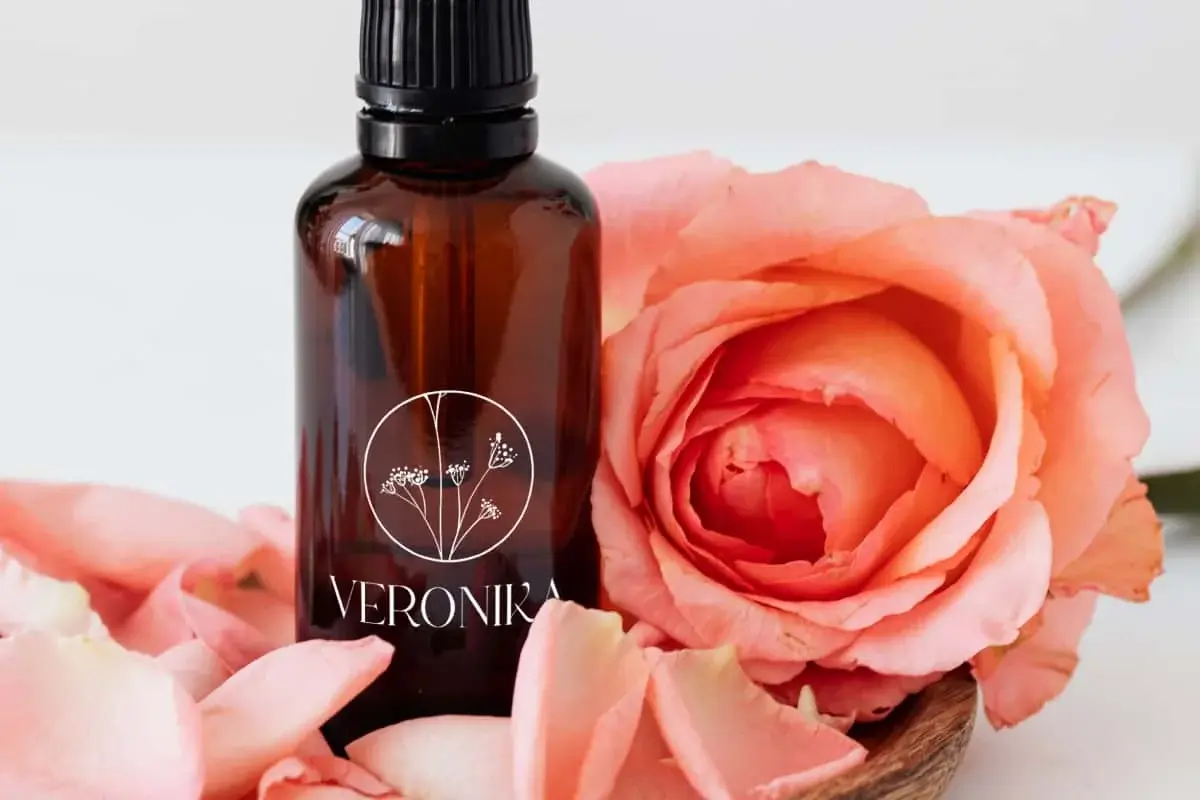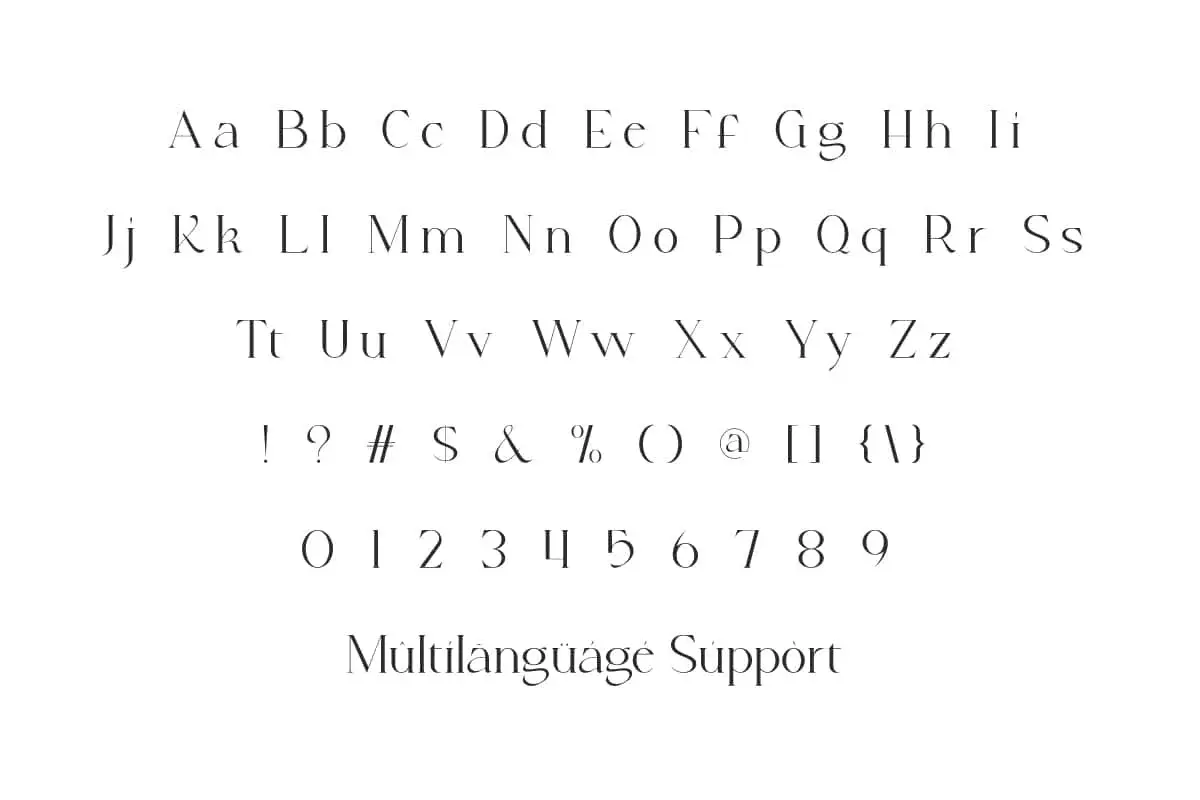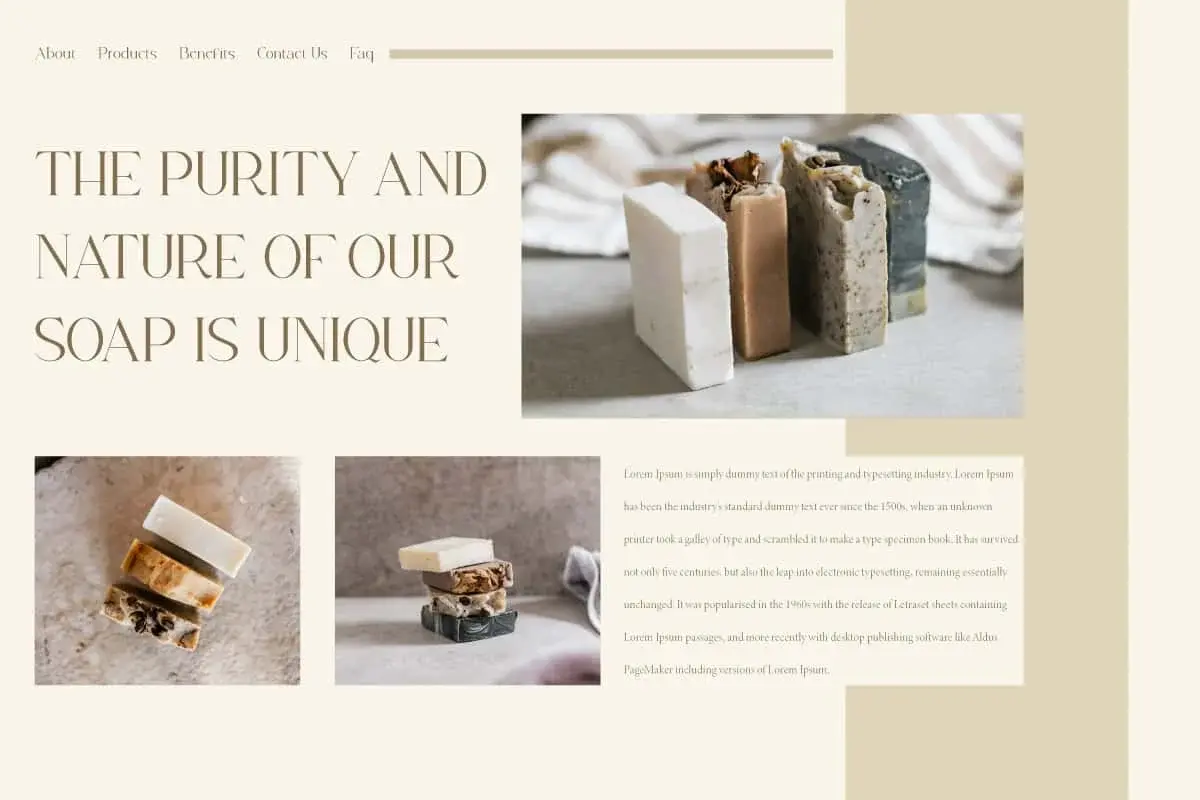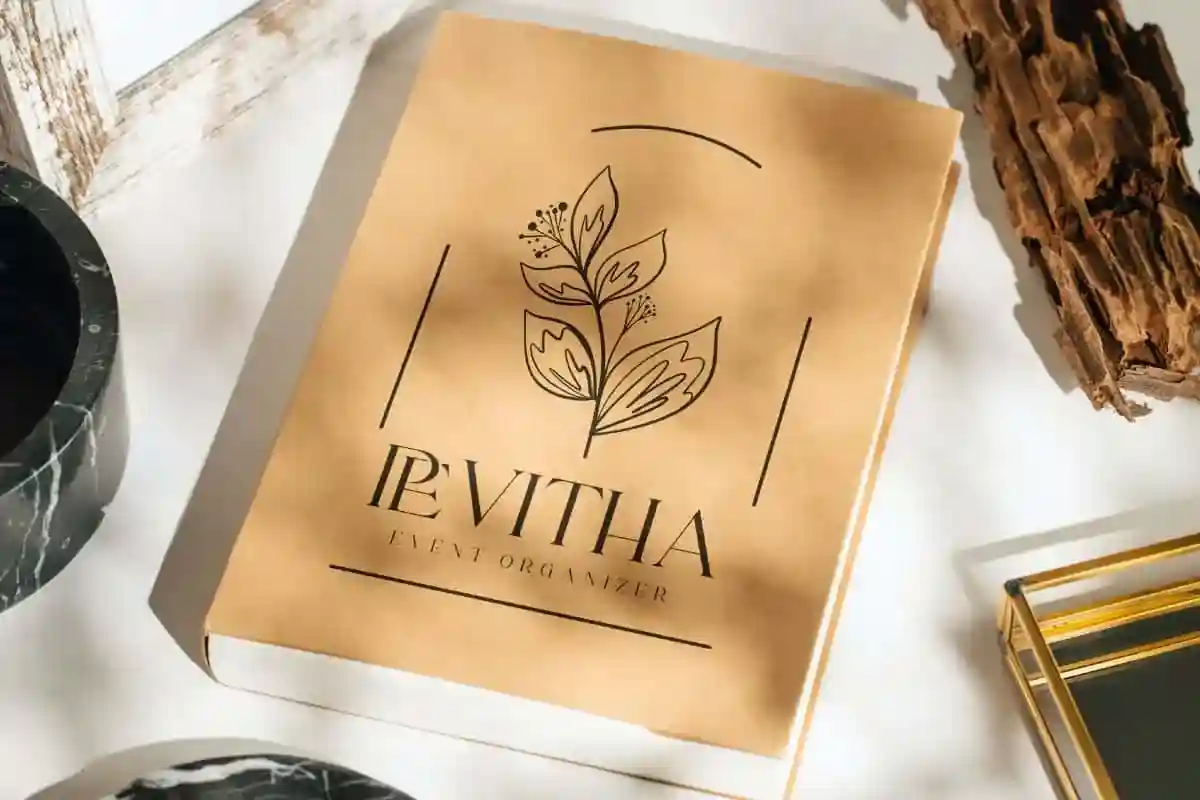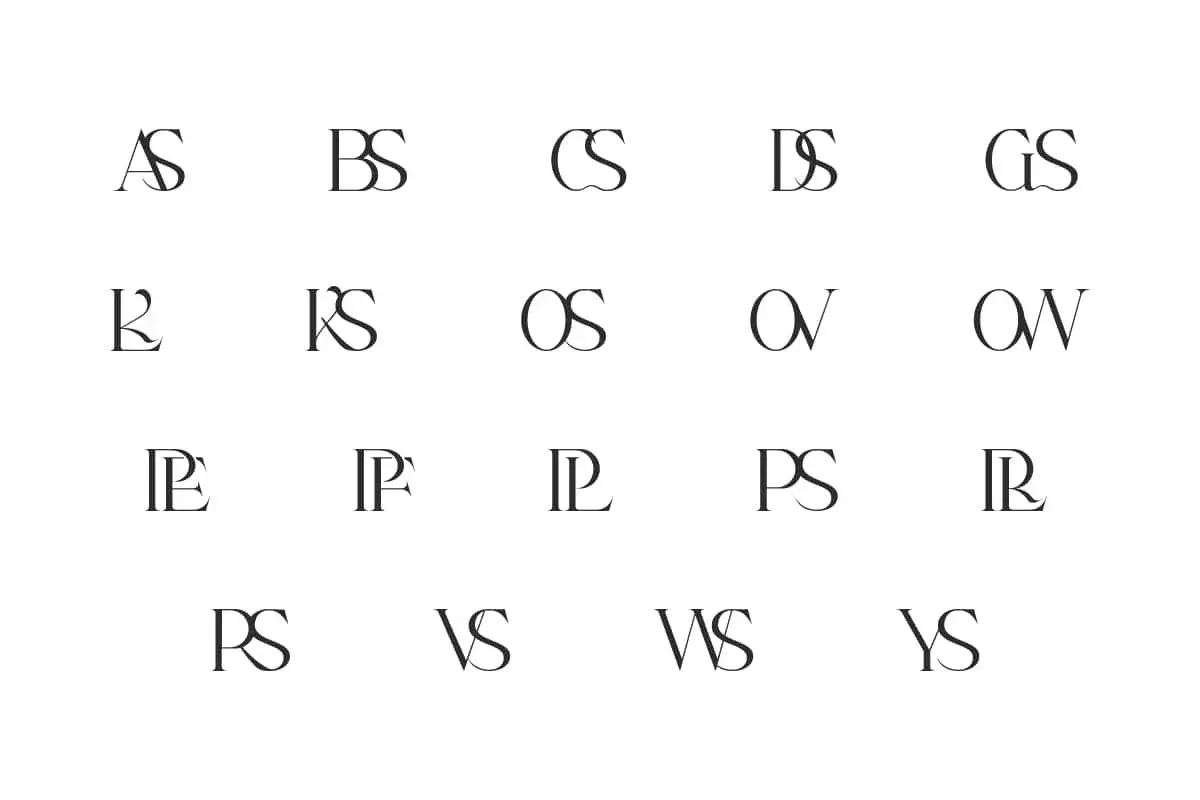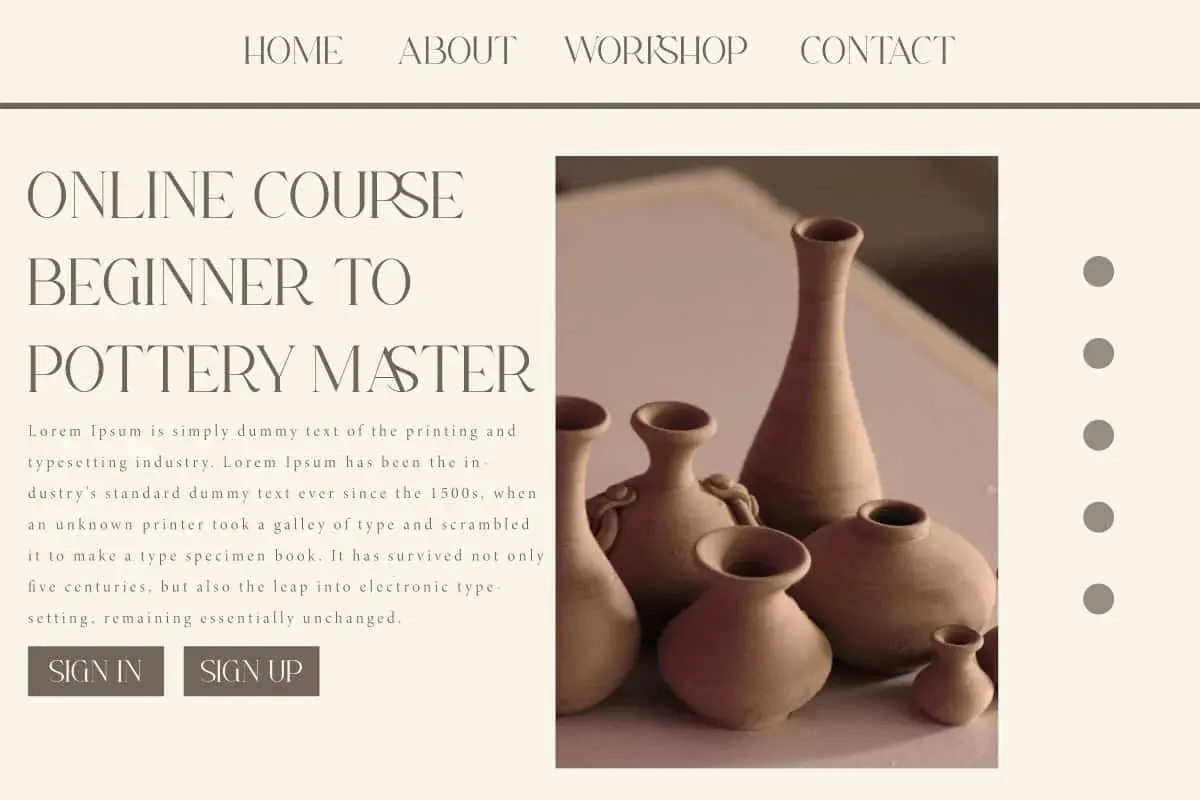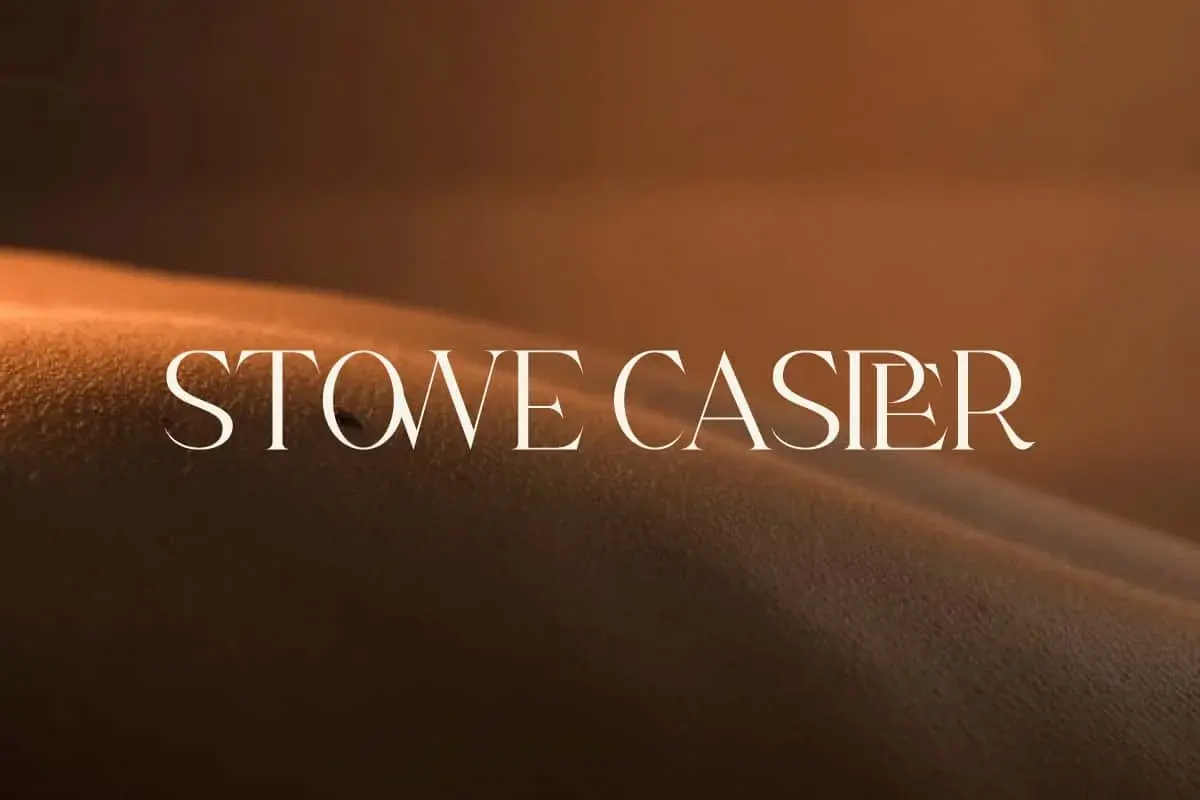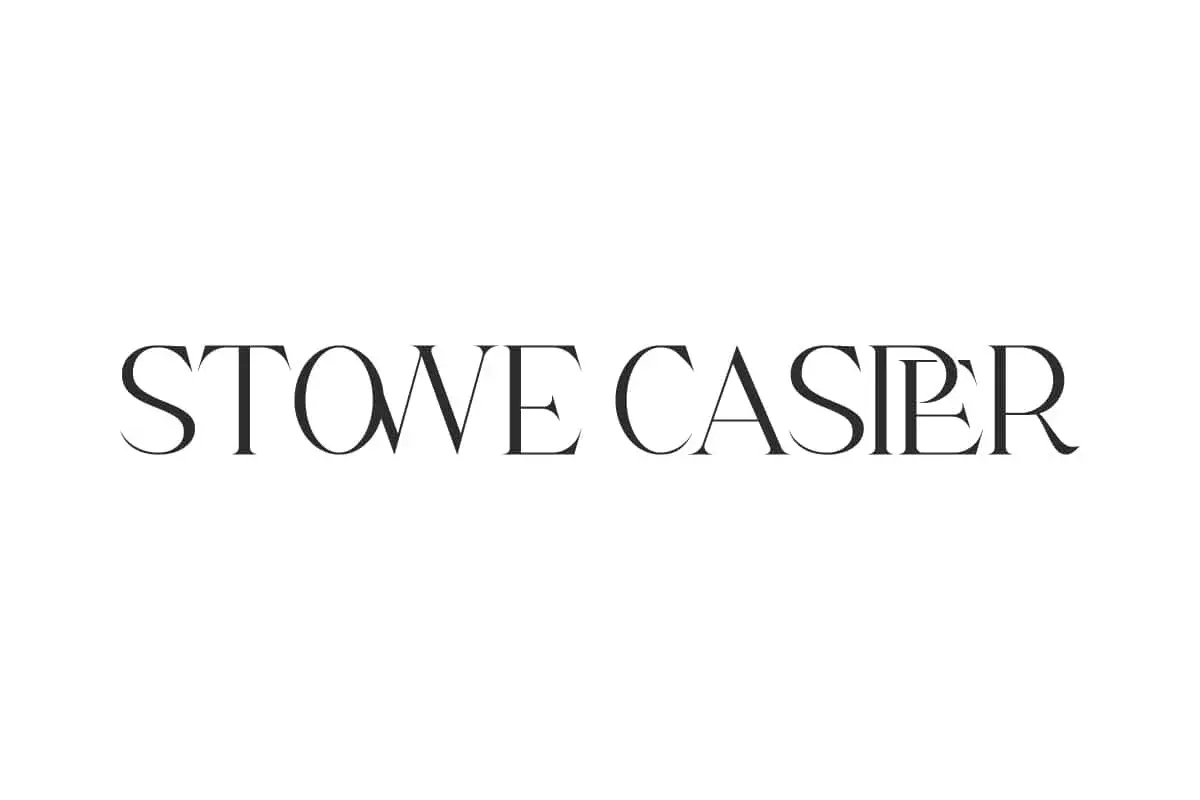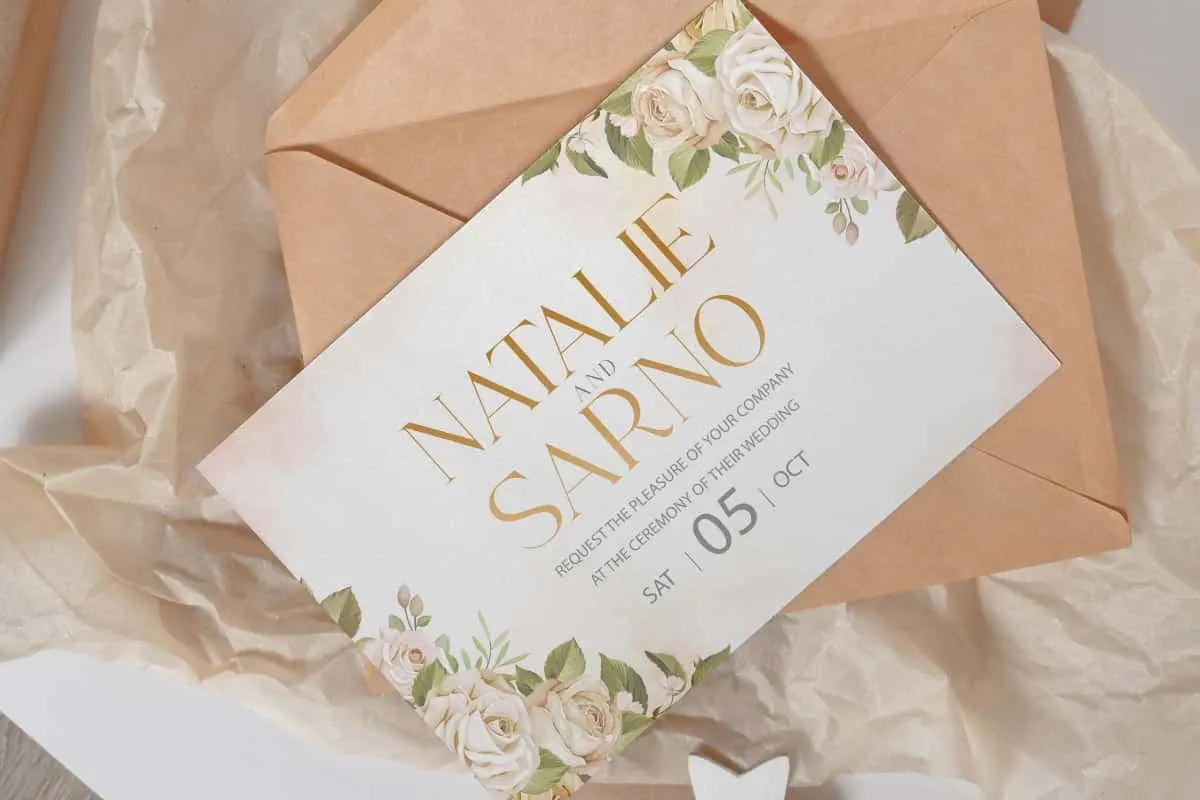
Stowe Casper Font
Stowe Casper Font is a sophisticated serif typeface with charming ligatures, bringing a luxurious and clean style in one glance! Use this for anything you want!
Stowe Casper Font is a casual sophisticated serif typeface combined with special ligatures that do feel unique and fit together in this font, so that it displays elegant letter characters with a modern and minimalist appearance. This font also looks amazing and will fit any design and is highly recommended for apps, blogs, brochure, covers, flyer, greeting card, headers, invitation, label, mockup, packaging, stationery, template, title, watermark, website, etc.
Stowe Casper Font includes full set of Uppercase and Lowercase Basic Characters, Numbers, Punctuation, Symbols and Ligature. This is the perfect look to bring a luxurious and clean style to a multi-purpose project. It might be suitable for products that want to convey a sophisticated or classy and authentic feel. Perfect for boutique, event organizer, fashion, florist, graphic design, handicraft, pottery, wedding, and more.